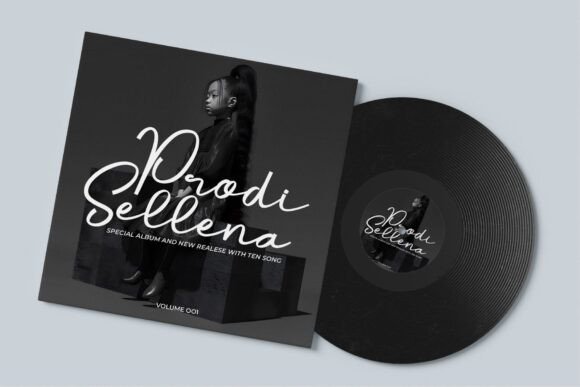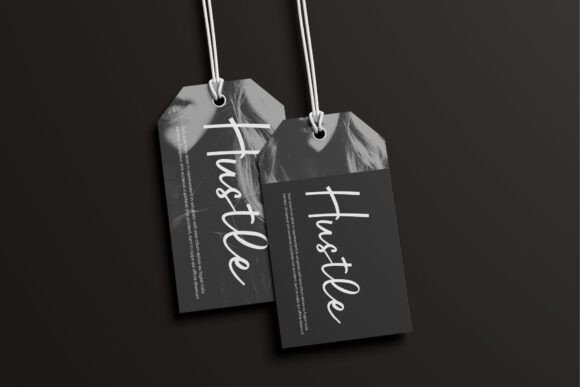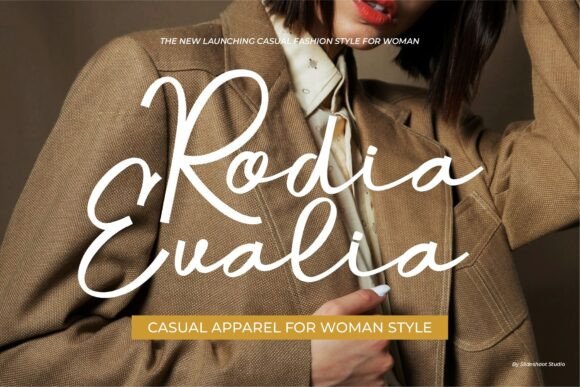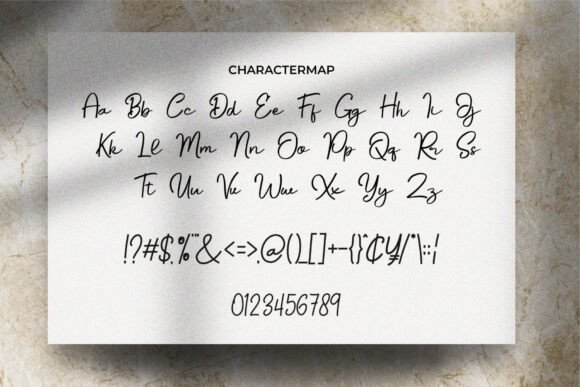
Discover the Timeless Charm of Della Morgan Font
Have you ever found yourself lost in a creative moment, surrounded by scribbles and sketches, searching for the perfect font to bring your design to life? That’s exactly what happened to many designers who discovered the Della Morgan Font. This elegant handwritten font has been the go-to choice for those seeking a unique and timeless style that elevates their projects to the next level.
The Della Morgan Font is a perfect blend of sophistication and whimsy, making it ideal for a wide range of design applications, from wedding invitations to branding materials. Its flowing lines and distinct character make it a valuable asset for designers who want to add a personal touch to their work. Whether you’re a seasoned pro or a budding designer, the Della Morgan Font is sure to inspire your creativity and help you create spectacular designs.
Della Morgan Font Key Features
- Size: The font comes in 7 weights, ranging from Light to Extra Bold, offering flexibility for various design applications.
- Unique Characteristics: Della Morgan Font features a unique blend of modern and vintage elements, with intricate details and ornate flourishes, making it ideal for luxury branding and high-end design projects.
- Language Support: Della Morgan Font supports a wide range of languages, including Latin, Cyrillic, and Greek, making it suitable for global branding and design applications.
Della Morgan Font Review
I recently had the chance to work with the Della Morgan Font, and I must say it’s a unique and intriguing choice. Here are my thoughts on what works well and what could be improved.
- Beautifully crafted letterforms: The Della Morgan Font features elegant, flowing lines that give it a sophisticated feel.
- High-quality texture: The font’s texture is well-rendered, adding a tactile quality that’s perfect for design projects that require a bit of grit.
- Excellent for titles and headlines: The font’s bold, eye-catching style makes it perfect for grabbing attention in titles and headlines.
- Readability at smaller sizes: While the font looks great at larger sizes, it can become difficult to read at smaller sizes due to its complex texture.
- Limited character set: The font’s character set is limited, which can make it difficult to use for projects that require a wide range of characters.
- May not be suitable for body text: The font’s bold, attention-grabbing style makes it less suitable for body text, where readability is key.
The Della Morgan Font is a great choice for design projects that require a bold, eye-catching style. While it has some limitations, its unique texture and beautifully crafted letterforms make it a great addition to any designer’s toolkit. Just be sure to use it sparingly and in the right context to get the most out of it.
Della Morgan is ideal for various design projects, including:
- Editorial and publishing projects
- Event and conference materials